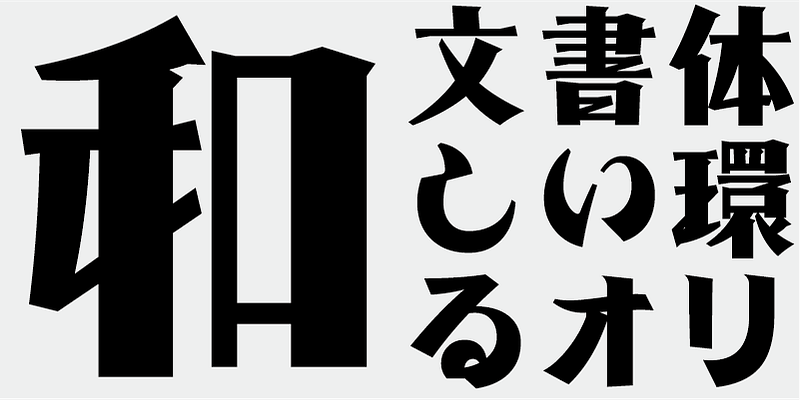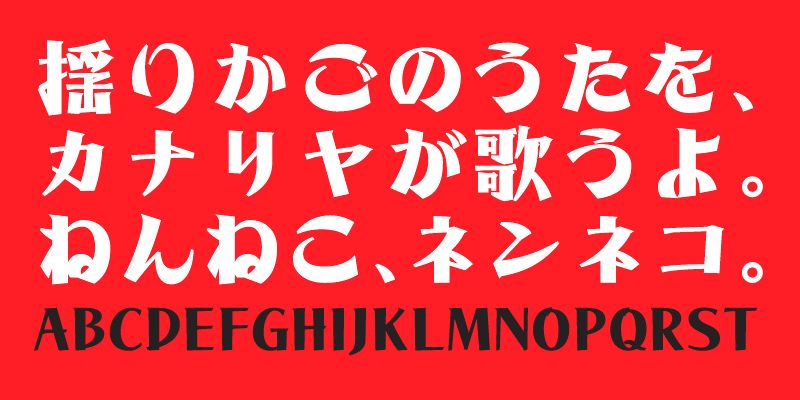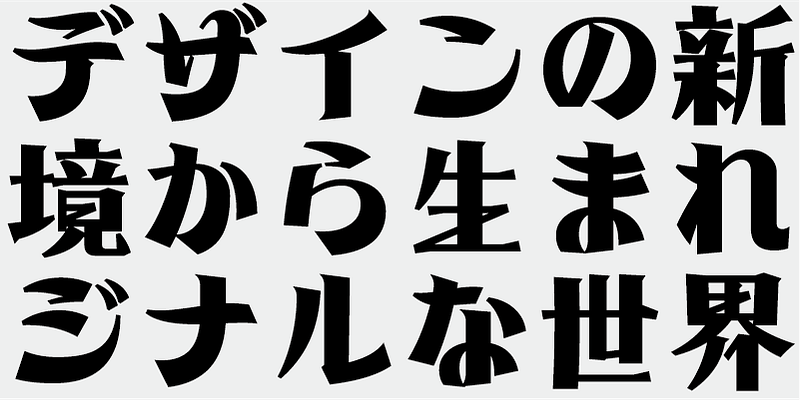
I combined kana glyphs with tightly shaped curves and wider counter spaces with Mincho-style (Song-style) kanji characters. This is an elegant and decorative neo-classical typeface design, and effective for display purposes with the voluminous feeling.